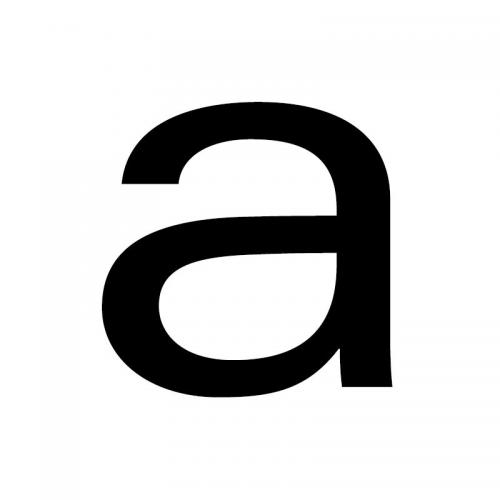
A font with a width greater than what would be considered “normal” or “regular”.
German: breit
Italian: Largo
Polish: szeroki
Portuguese: extendida
Spanish: Expandida
Turkish: Genişletilmiş